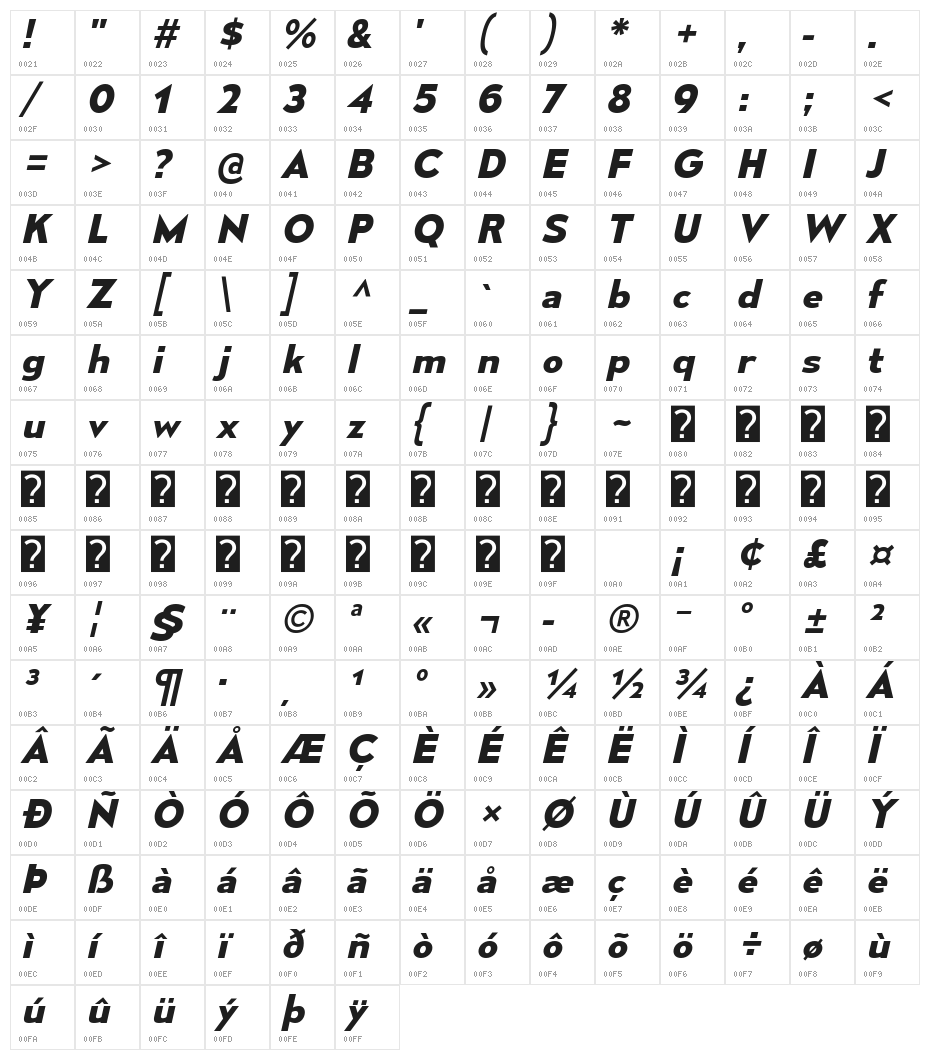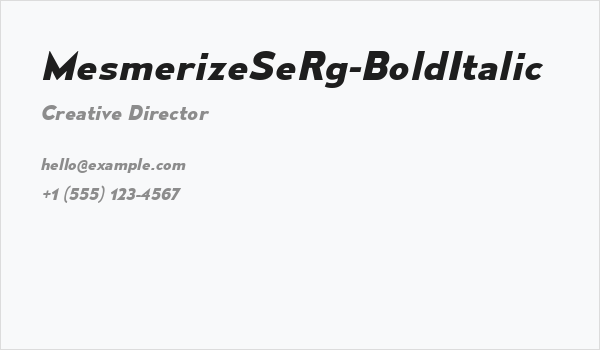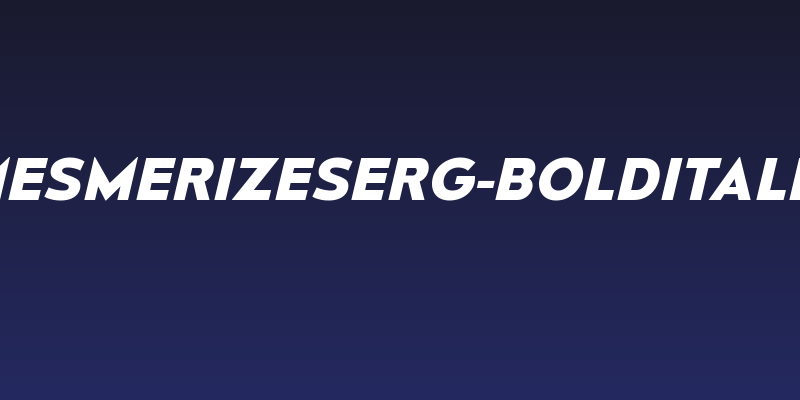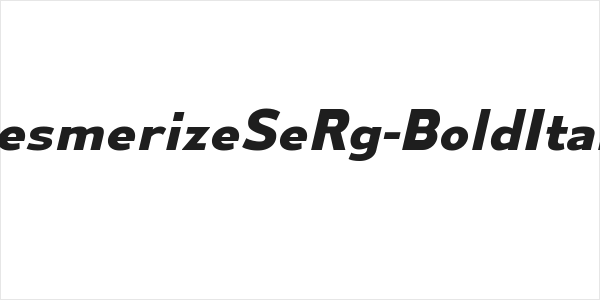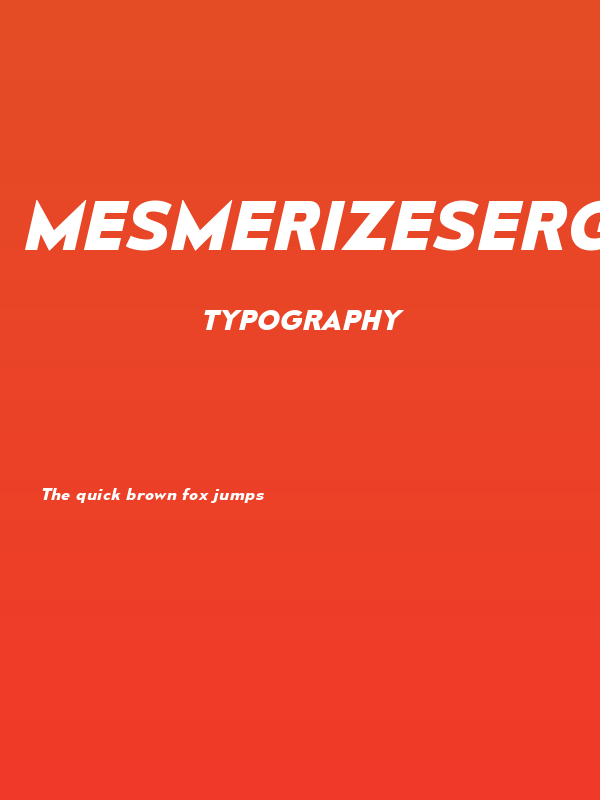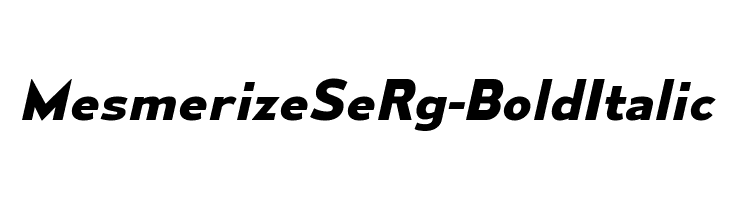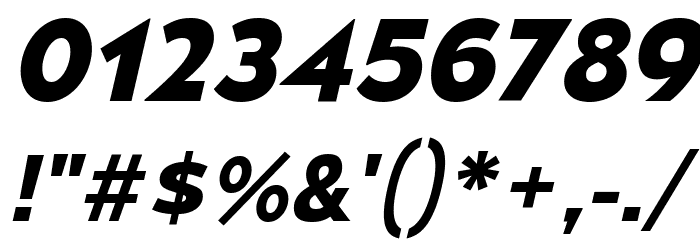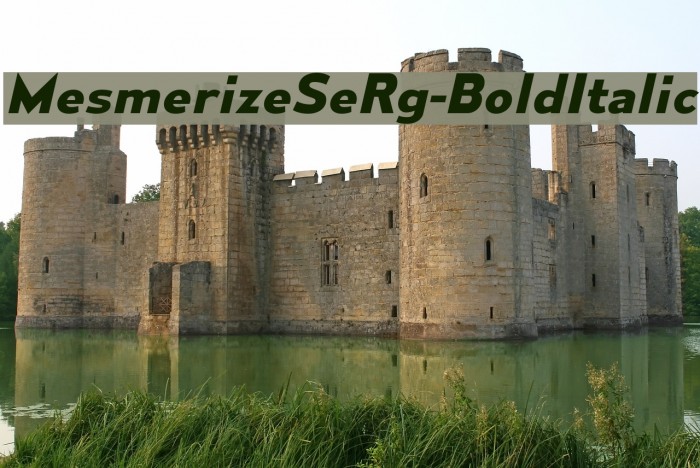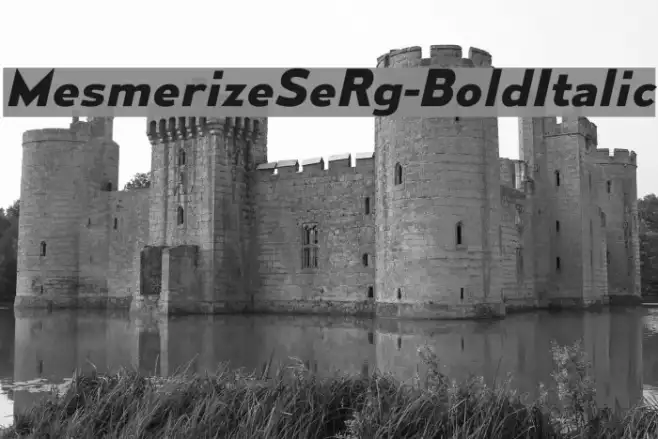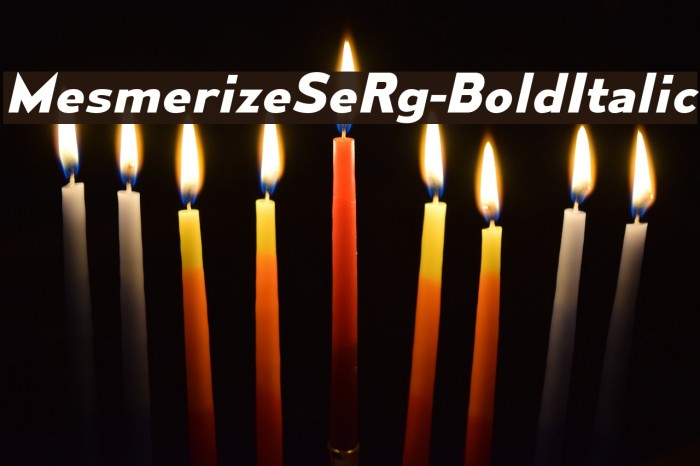
MesmerizeSeRg-BoldItalic Font
MesmerizeSeRg-BoldItalic Description
This font exhibits a bold and dynamic presence with its italicized style, offering a sense of movement and energy. The characters are robust and slightly condensed, providing a strong visual impact. The uppercase letters are assertive and well-defined, while the lowercase letters maintain a consistent flow, enhancing readability. The numerals are clear and balanced, making them suitable for various applications. Special characters are designed with precision, complementing the overall aesthetic. The font's bold weight and italic slant make it ideal for attention-grabbing headlines and impactful designs.
| Proposed Projects | Ideal for branding, advertising, headlines, and any project requiring a strong visual impact. |